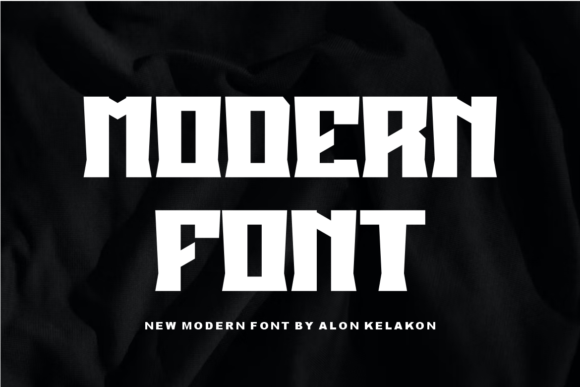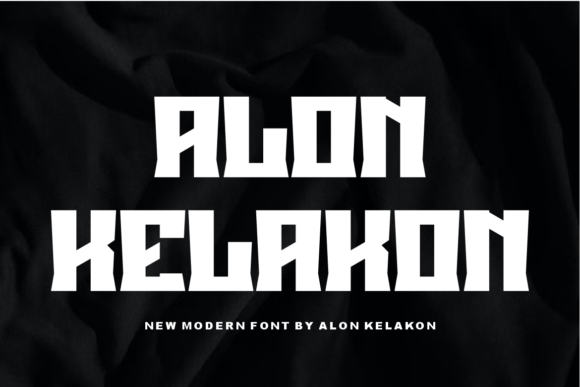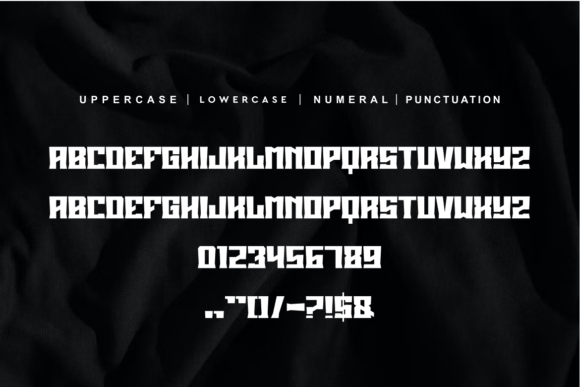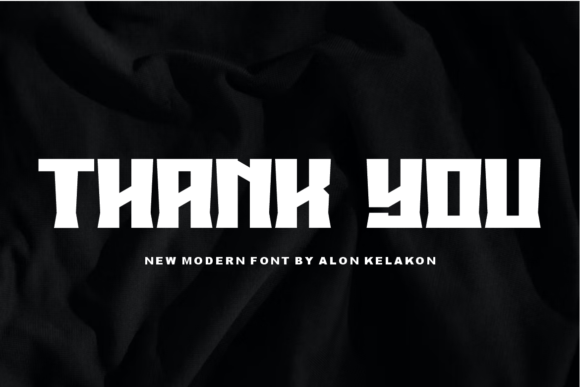
Garymax Font: The Ultimate Display Font for Creative Designs
Are you a designer or crafter looking for a unique and bold display font to elevate your creative projects? Look no further than Garymax Font! This stunning font is perfect for making a statement with labels, branding, logos, clothing, movie titles, posters, music album covers, and many more. In this article, we’ll dive into the features and benefits of Garymax Font, and explore how it can take your designs to the next level.
What is Garymax Font?
Garymax Font is a distinctive and eye-catching display font that is designed to grab attention. Its bold and modern style makes it perfect for creating striking designs that stand out from the crowd. Whether you’re working on a logo, label, or poster, Garymax Font is sure to make a lasting impression.
Key Features of Garymax Font
- Unique and Bold Design: Garymax Font boasts a one-of-a-kind design that is both bold and eye-catching.
- High Versatility: This font is perfect for a wide range of creative projects, from labels and branding to movie titles and music album covers.
- Easily Readable: Despite its bold style, Garymax Font is surprisingly easy to read, making it perfect for headlines and titles.
- Scalable: Garymax Font looks great at any size, from small labels to large posters.
Benefits of Using Garymax Font
So why choose Garymax Font for your creative projects? Here are just a few benefits of using this amazing display font:
- Adds a Professional Touch: With Garymax Font, you can add a professional and polished touch to your designs.
- Increases Visibility: The bold and eye-catching design of Garymax Font makes it perfect for grabbing attention and standing out from the crowd.
- Enhances Creativity: Garymax Font is the perfect tool for sparking your creativity and taking your designs to new heights.
How to Use Garymax Font
- Labels and Branding: Use Garymax Font to create eye-catching labels and branding materials that stand out.
- Movie Titles and Posters: Create stunning movie titles and posters with Garymax Font.
- Music Album Covers: Use Garymax Font to design amazing music album covers that grab attention.
- Clothing and Merchandise: Add a bold and stylish touch to your clothing and merchandise designs with Garymax Font.
In conclusion, Garymax Font is a unique and bold display font that is perfect for designers and crafters looking to elevate their creative projects. With its high versatility, easily readable design, and scalable style, Garymax Font is the perfect addition to any font collection. So why wait? Download Garymax Font today and start creating amazing designs that stand out from the crowd!